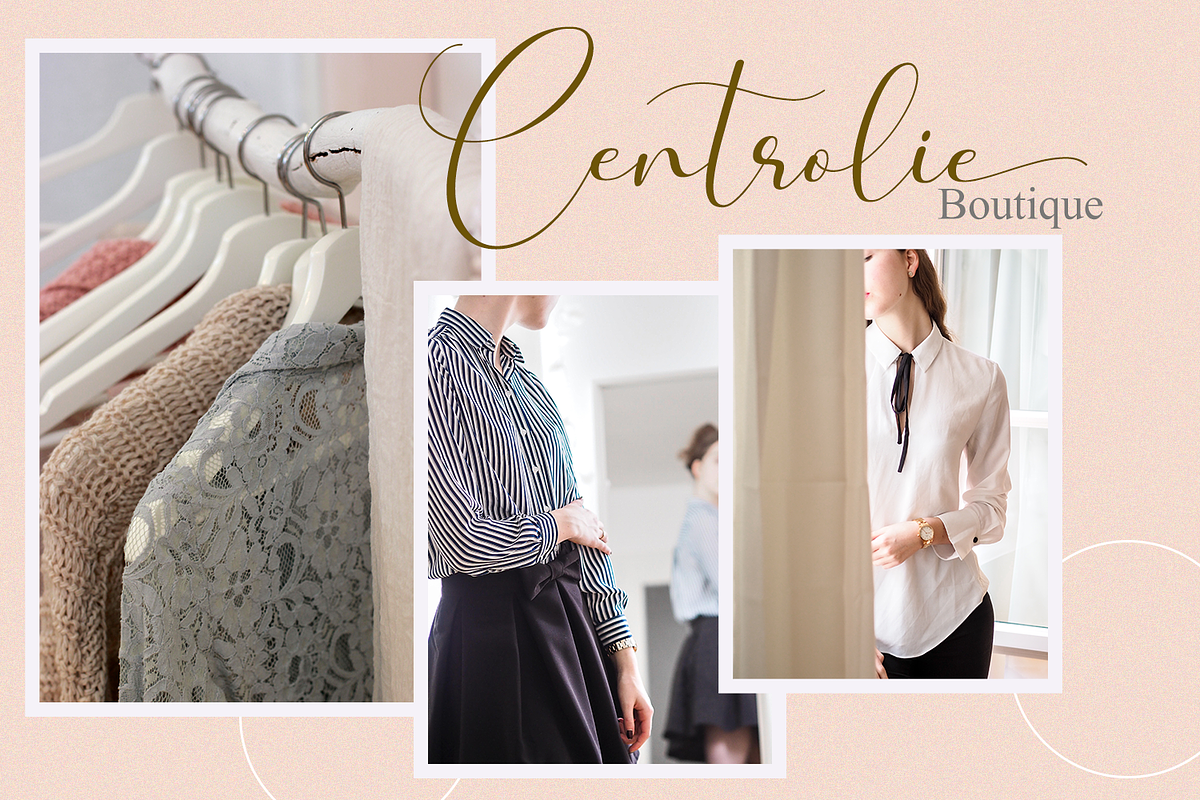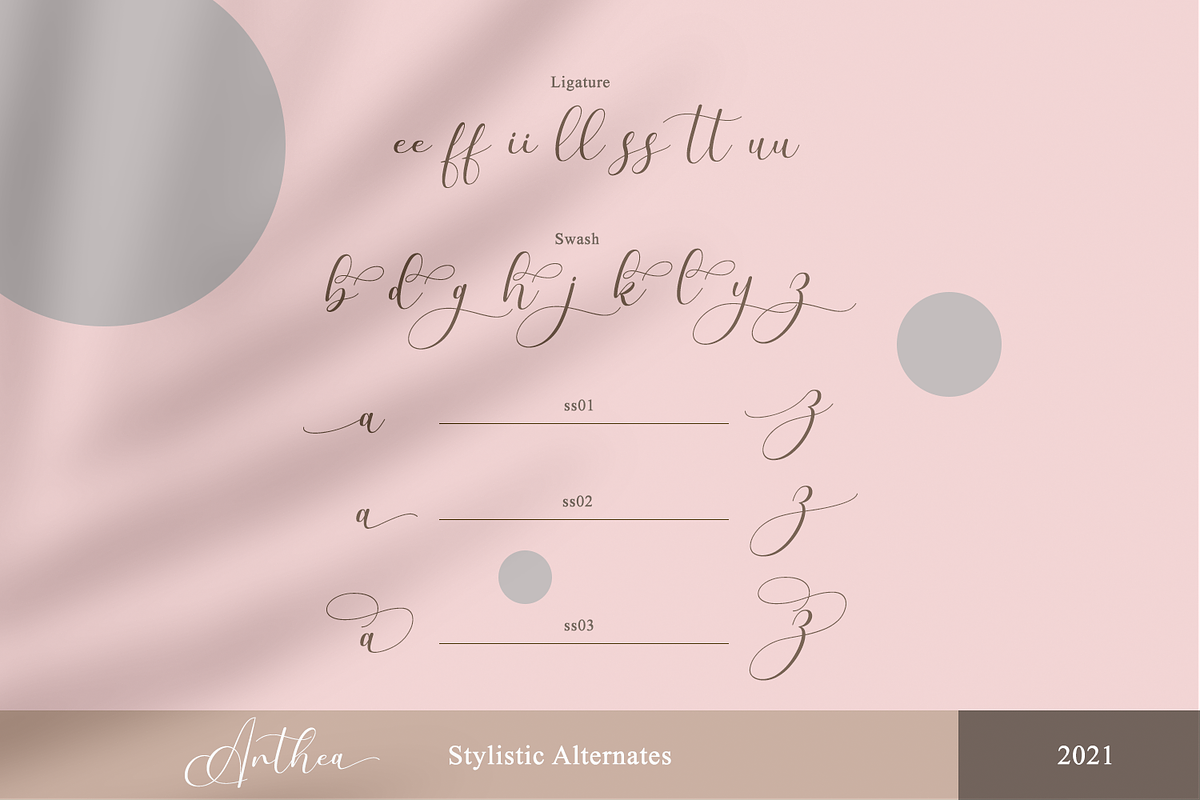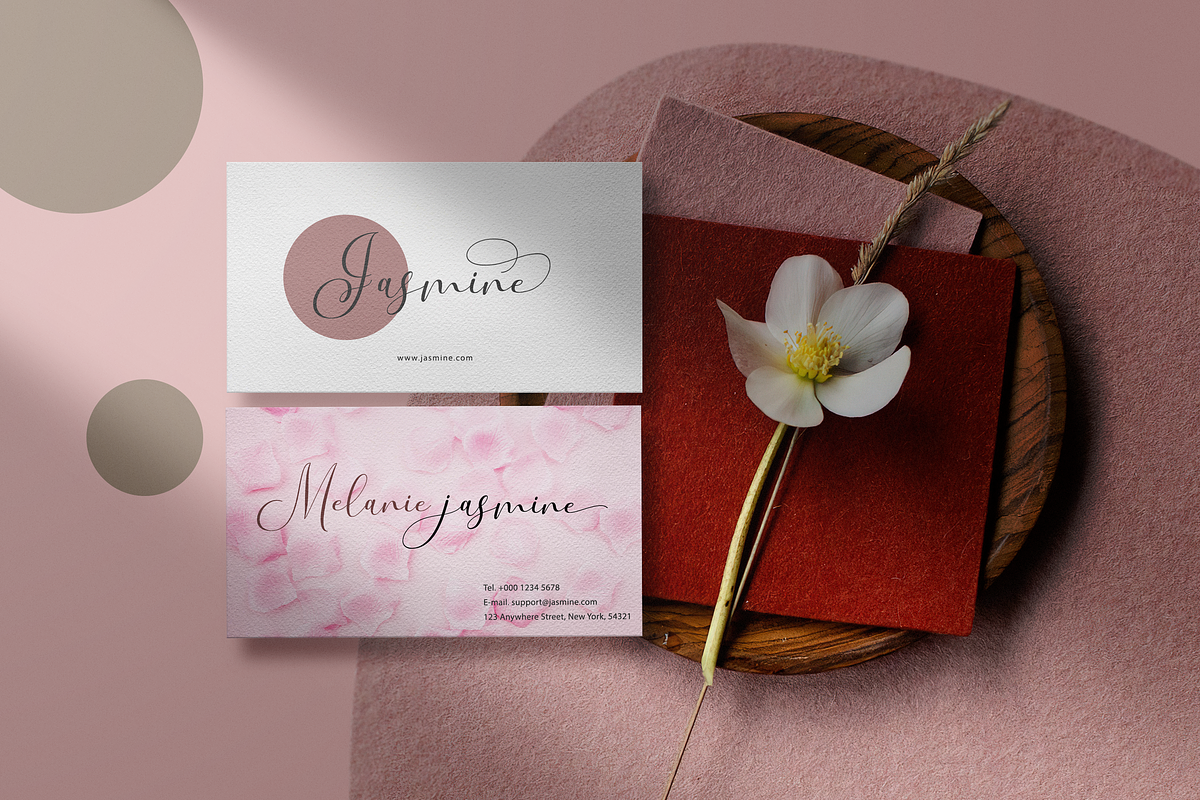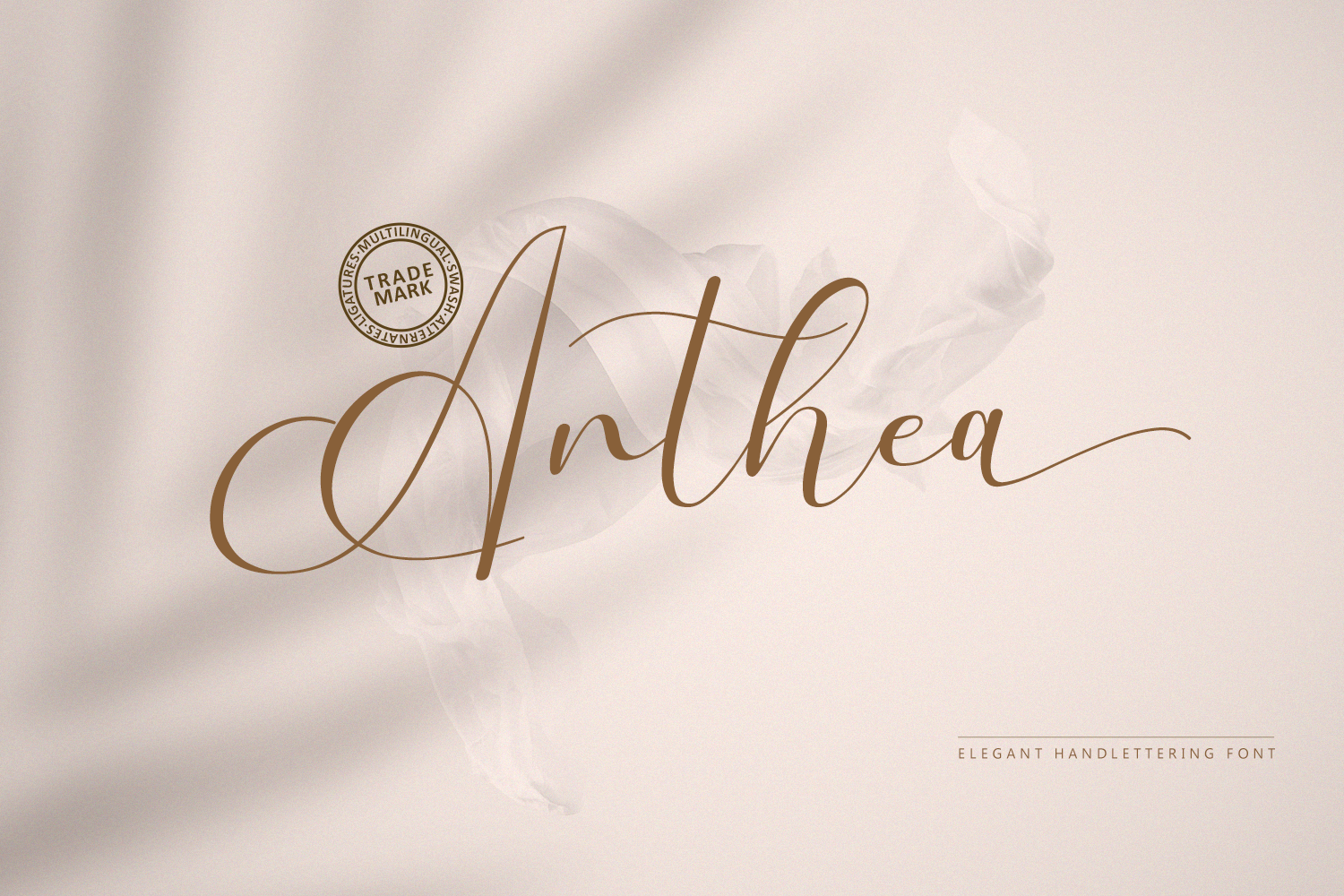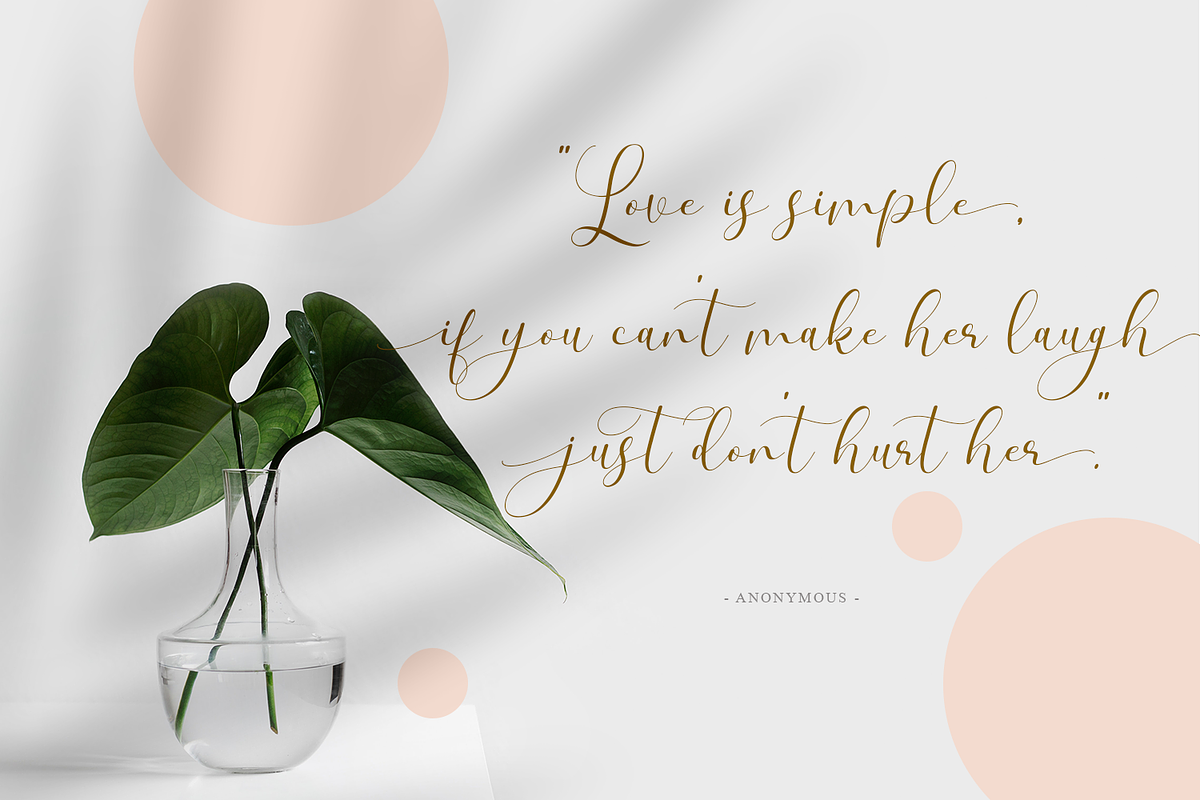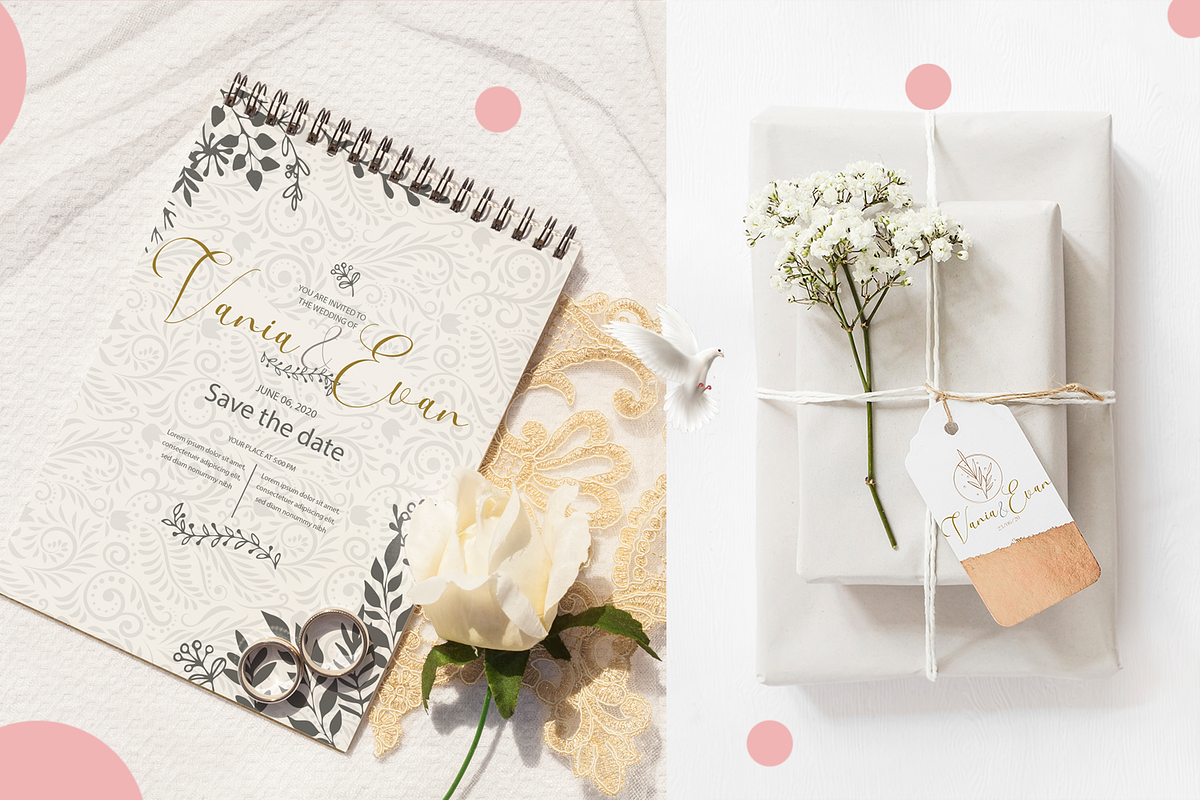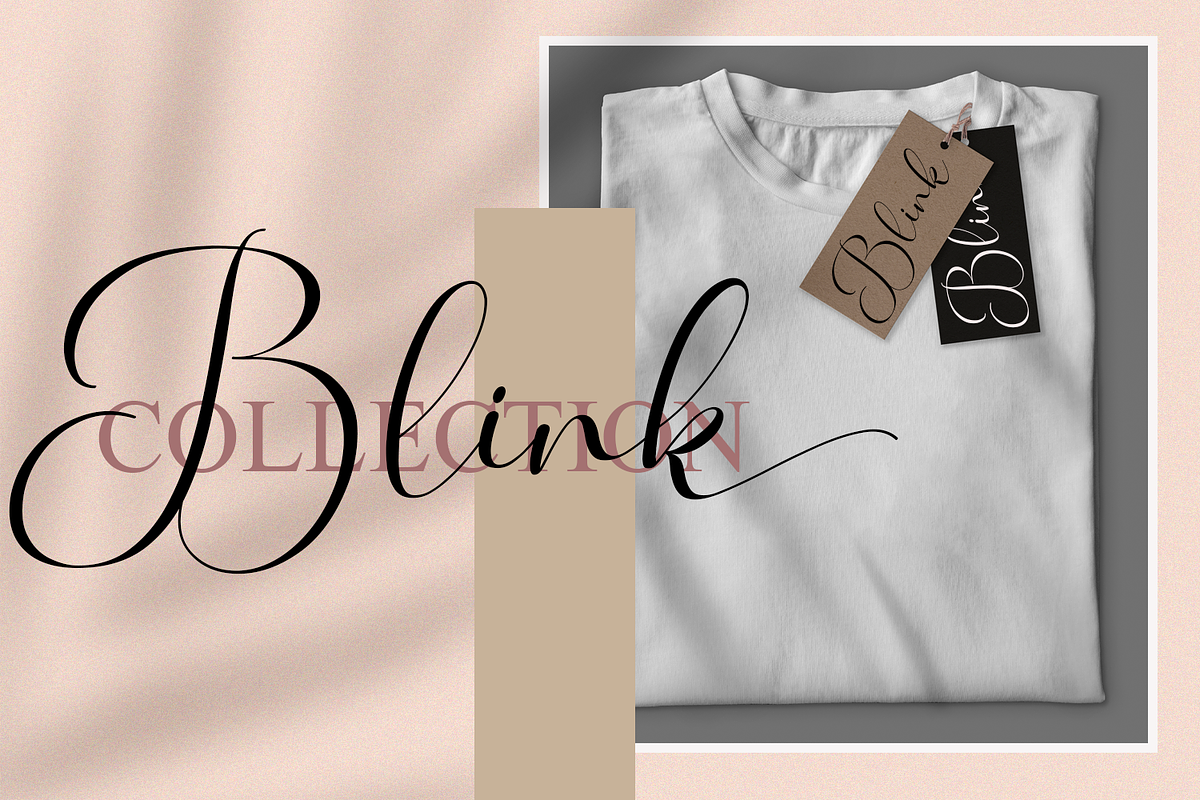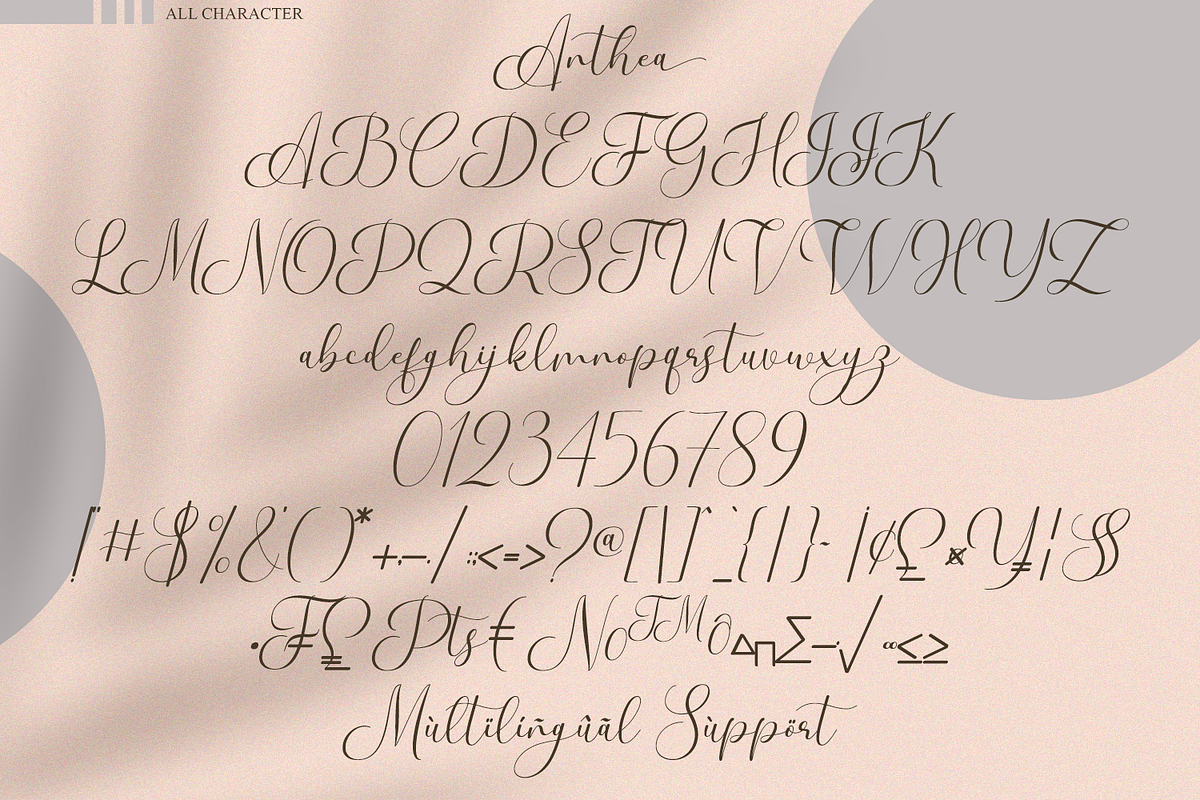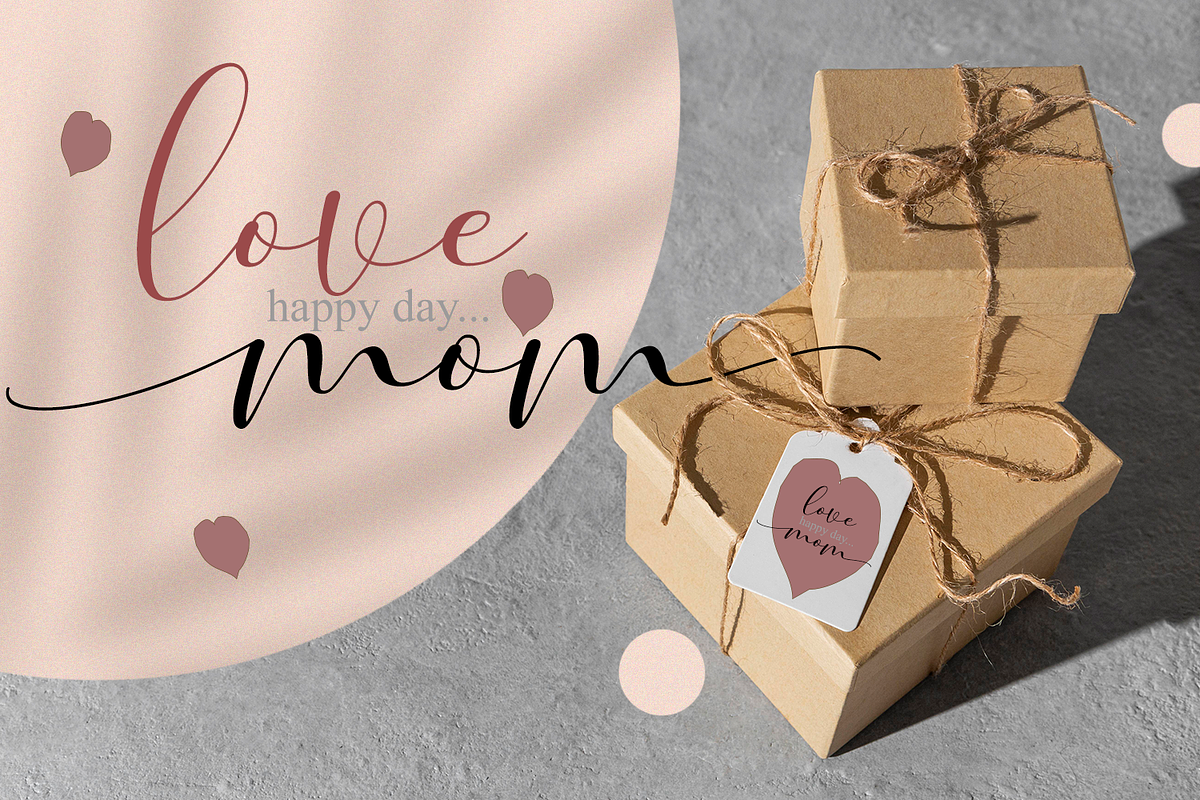
Anthea // Elegant Font
Are you planning to make something that will look more elegant and very sweet, so that many people admire it? If so you need to give a sweet touch to your plans by using a more special font! And here I dedicate a special font to make your plan, ..
Anthea - Elegant Handwritten Font
Anthea is a work of written art that gives the impression of being beautiful, sweet, elegant and charming. This font is perfect for you to use in various design plans that show a special impression such as business cards, invitation cards, wedding invitations, women's clothing brands, beauty product brands, love quotes and something that means love.
Our font always includes Multilingual Support to make your branding reach a global audience.
- Stylistic Set